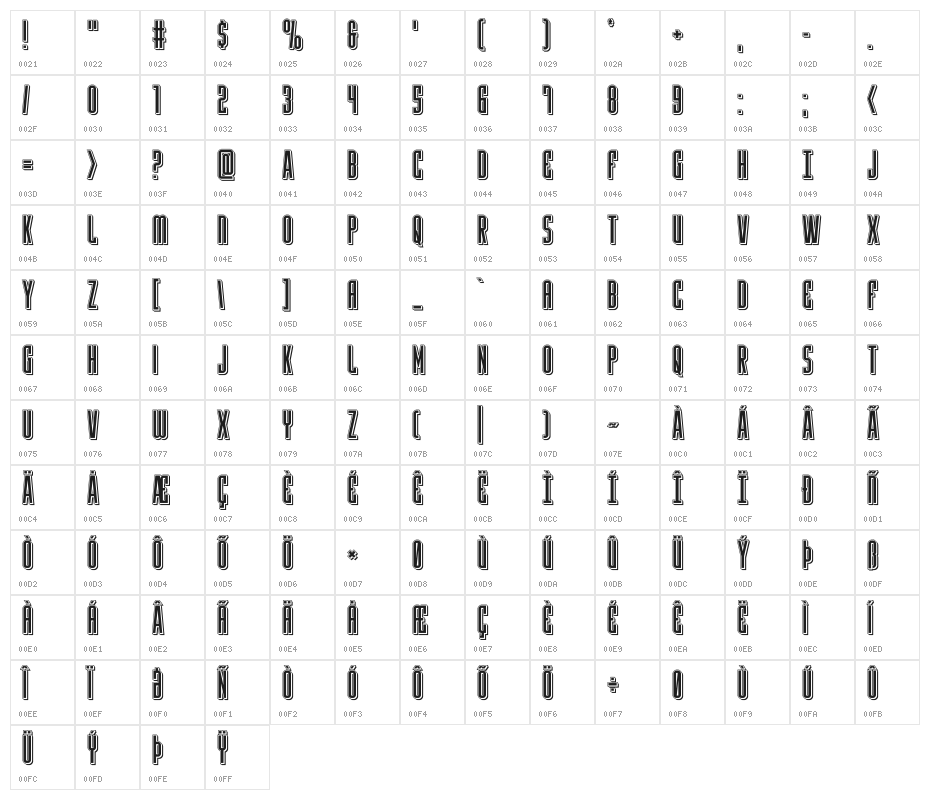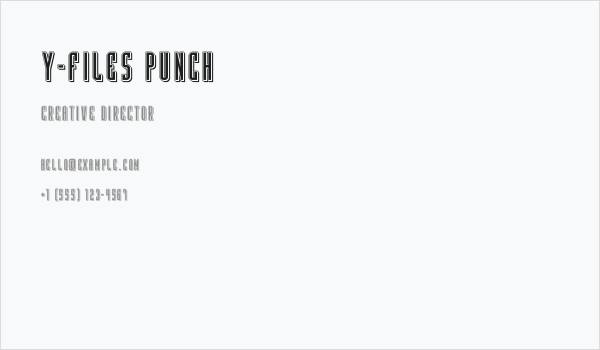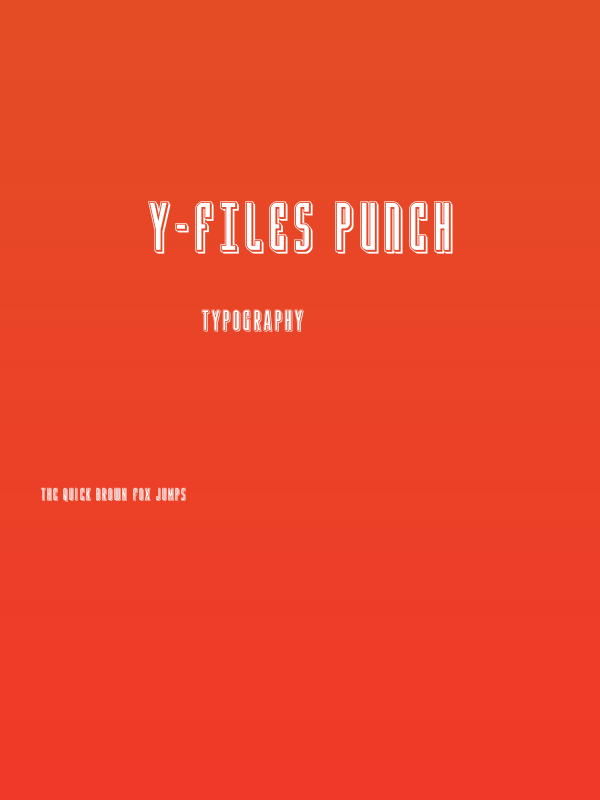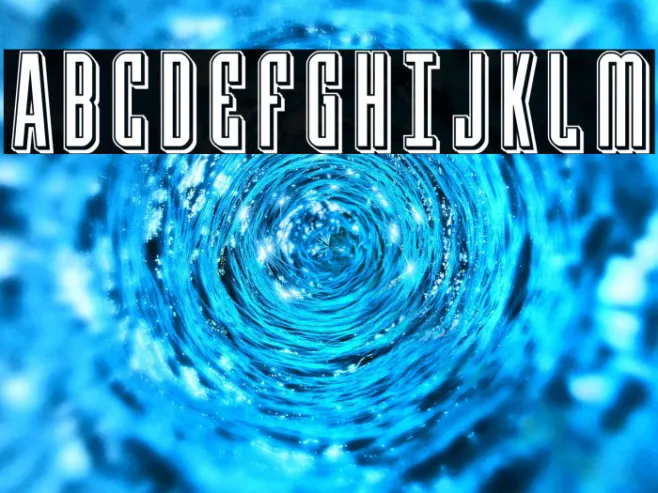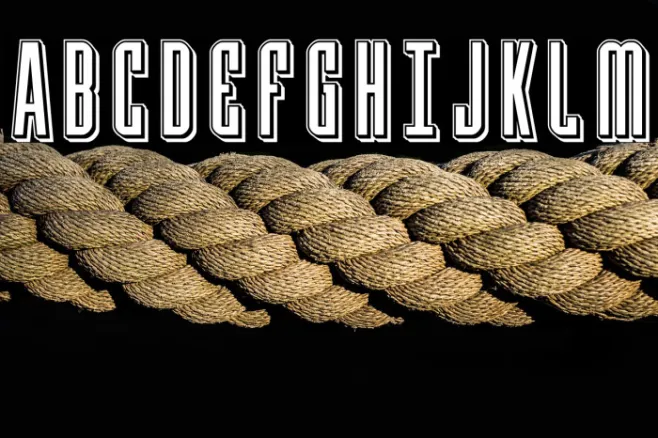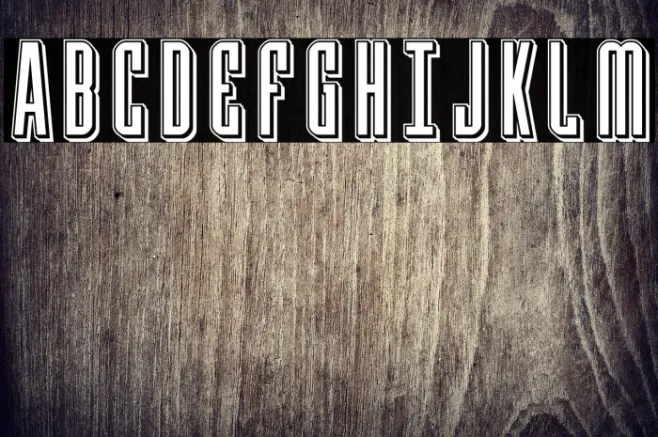
Y-Files Punch Font
Y-Files Punch Description
This font features a bold, impactful design with a strong geometric structure. The characters are outlined with a thick border, creating a striking contrast between the inner and outer sections. The uppercase letters are tall and narrow, giving a sense of height and elegance, while the lowercase letters maintain a consistent style. The numbers and special characters follow the same bold and outlined aesthetic, ensuring uniformity across all elements. This font's unique style makes it ideal for attention-grabbing designs.
| Proposed Projects | Ideal for posters, headlines, logos, and branding materials that require a strong visual impact. |